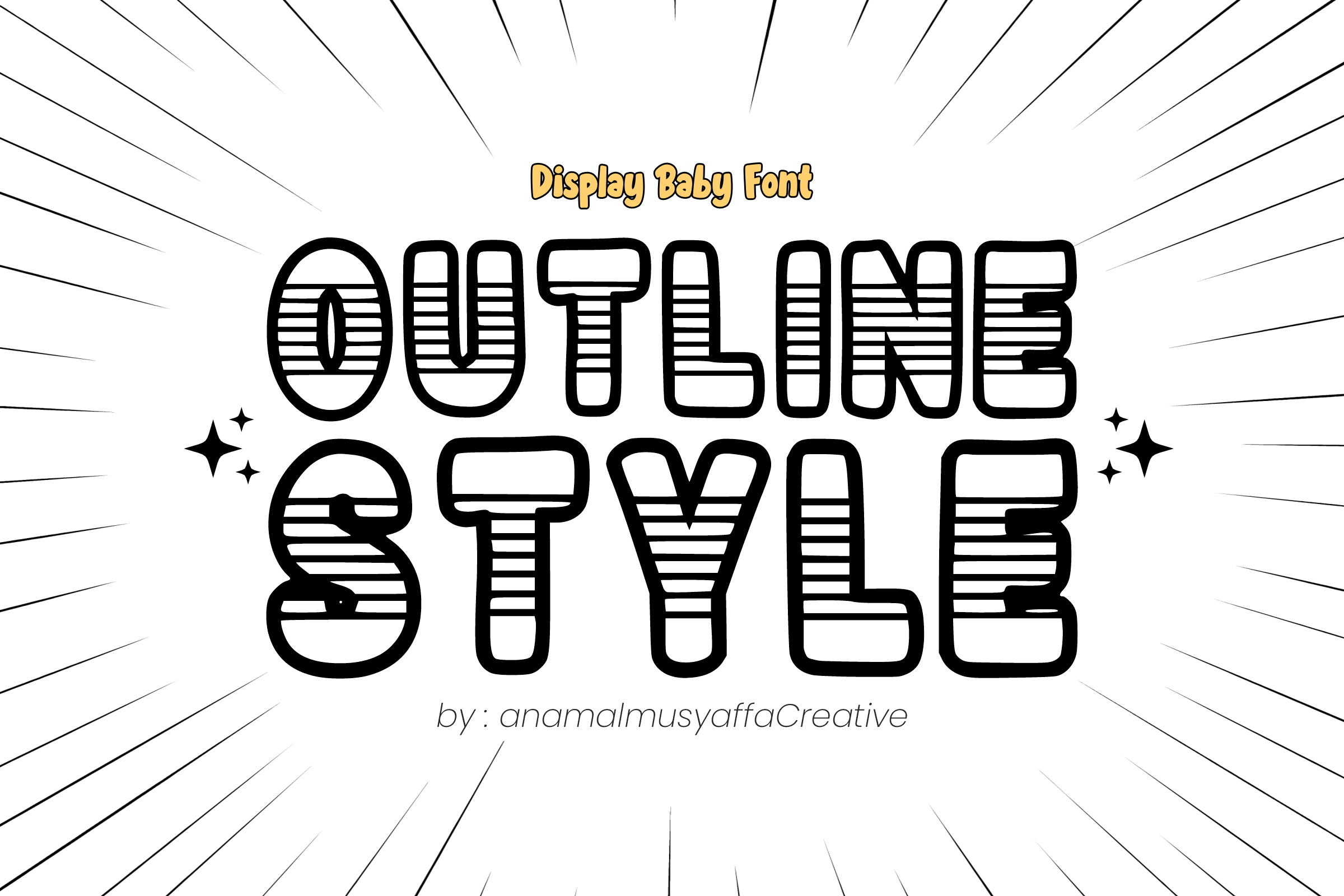
Outline Style - Display Font
✨ Outline Style: Playful & Bold Display Font ✨ Give your designs a cheerful, handmade touch with Outline Style! This charming display font features a chunky, bubble-like silhouette filled with unique horizontal stripes. It’s perfectly designed to bring a fun, "back-to-school" energy to any creative project.
Whether you are designing for children's books, quirky branding, or festive greeting cards, Outline Style stands out with its bold outlines and whimsical texture.
🔠 Uppercase Alphabet – Bold and expressive characters.
🔢 Numbers & Fractions – Consistent striped styling.
symbols Essential Punctuation – Everything you need for complete designs.
🎨 Kids' Birthday Invitations & Posters
👕 Custom T-shirt Designs & Merchandise
📚 School Projects & Educational Material
🏷️ Playful Branding & Logo Design
📱 Social Media Graphics & Headers